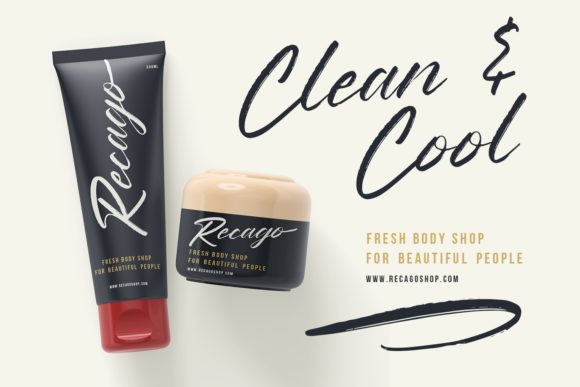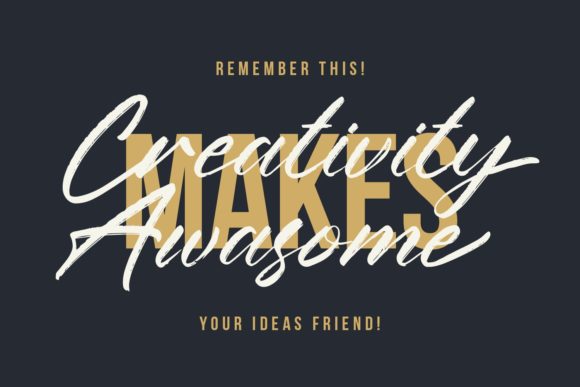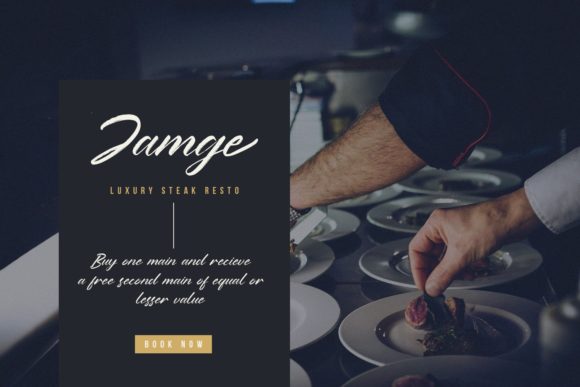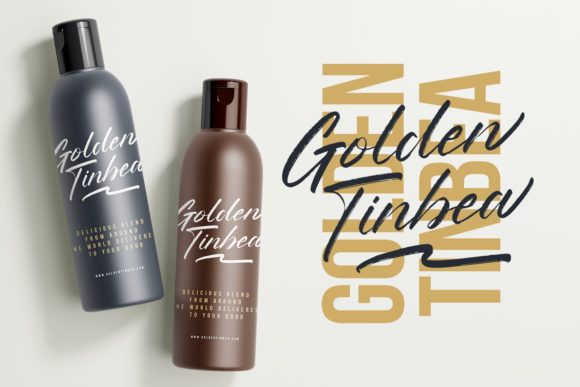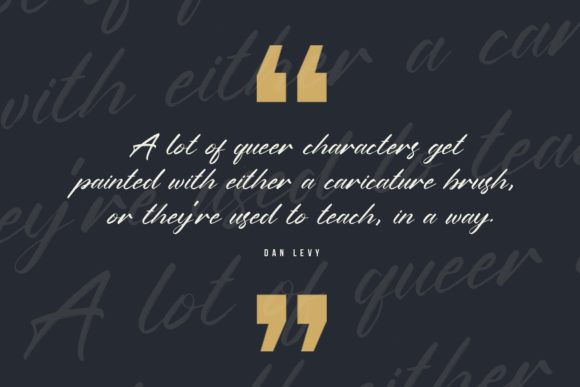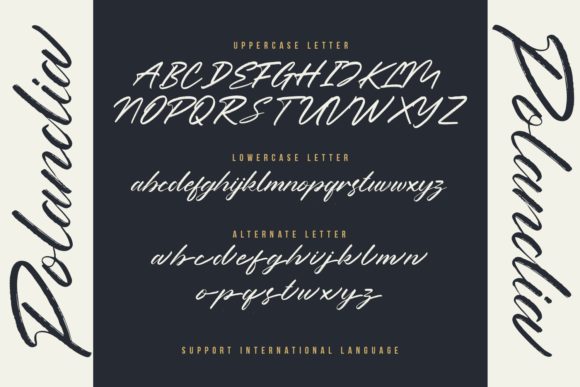
Introduction to Polandia Font
As a designer, there’s nothing quite like the thrill of discovering a new font that perfectly captures the essence of your creative project. For me, that moment came when I stumbled upon the Polandia Font, a sophisticated script font that’s as versatile as it is beautiful. With its elegant lines and refined curves, it’s the perfect addition to any design resource, from business cards and posters to wedding invitations and magazines.
Whether you’re working on a high-end project or a more casual, personal endeavor, the Polandia Font is sure to bring a touch of sophistication and class. Its high quality and versatility make it an invaluable asset for designers, and its transparent background allows for seamless integration with any design element. The best part? It’s available for free download, making it an accessible and valuable resource for creatives of all levels.
Key Features of Polandia Font
- High-quality, professional font design for creative projects
- Includes a transparent background, allowing for seamless integration
- Features a high-resolution design, ideal for print and digital applications
- Supports a wide range of languages, making it a versatile font option
Honest Review: Polandia Font
I recently had the opportunity to work with the Polandia Font, and I must say it’s been a game-changer for my creative projects. As a designer, I’m always on the lookout for high-quality fonts that can elevate my designs and help me convey my message effectively.
What works well: ✨ The Polandia Font is incredibly versatile and can be used for a wide range of creative projects, from logos and branding to typography-heavy designs. Its unique style and elegant feel make it a great addition to any design resource. I also appreciate that it’s available for free download, which is a huge bonus for designers on a budget.
What could be improved: ⚠️ While the Polandia Font is a high-quality font, it does have some limitations. One of the main issues I’ve encountered is that it doesn’t support transparent backgrounds, which can be a bit frustrating when working with complex designs.
Overall, I’m thoroughly impressed with the Polandia Font and would highly recommend it to fellow designers. Its unique style and high-quality design make it a valuable addition to any design resource.
- Unique style and elegant feel
- Great for logos, branding, and typography-heavy designs
How to Use Polandia Font
The Polandia Font is a versatile and high-quality design resource that can be used for a wide range of creative projects. Its transparent background makes it easy to overlay on images or other design elements.
Tips for Getting the Most Out of Polandia Font
To get the most out of the Polandia Font, try using it in combination with other design elements, such as images and graphics. Experiment with different font sizes and styles to create a unique and visually appealing design.
The Polandia Font is ideal for a wide range of creative projects, including:
- Graphic design and visual identity